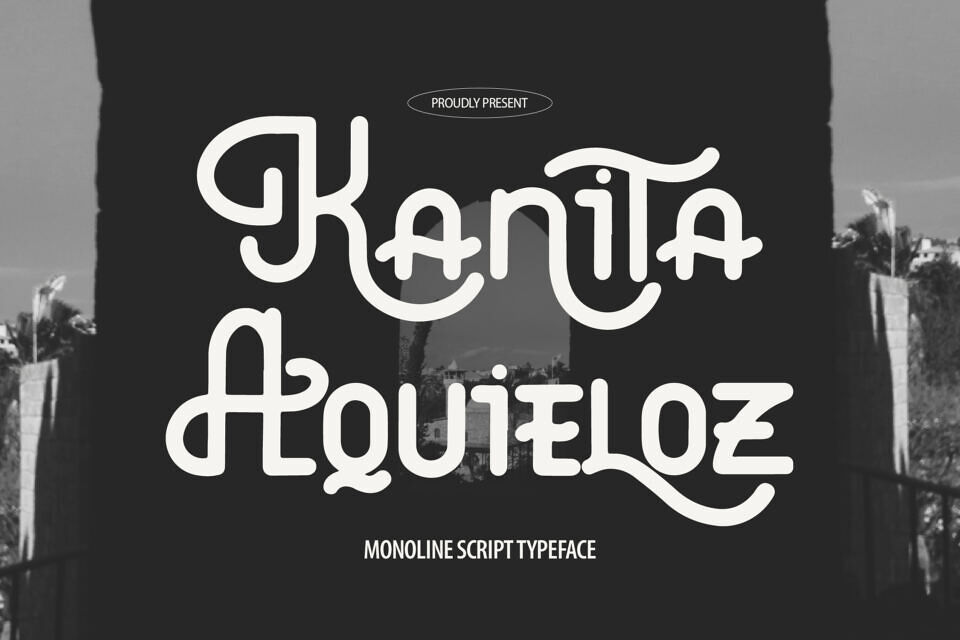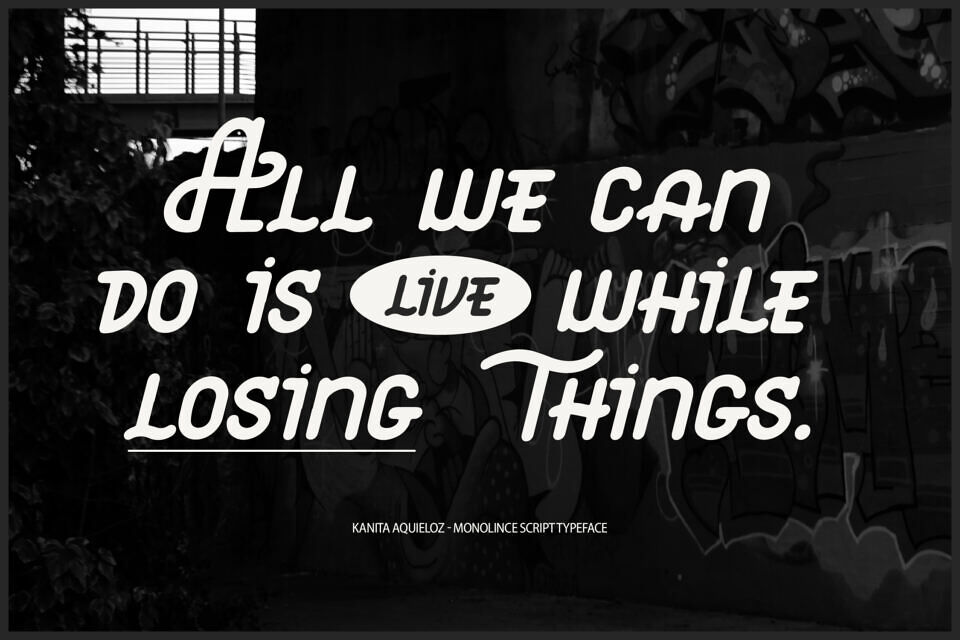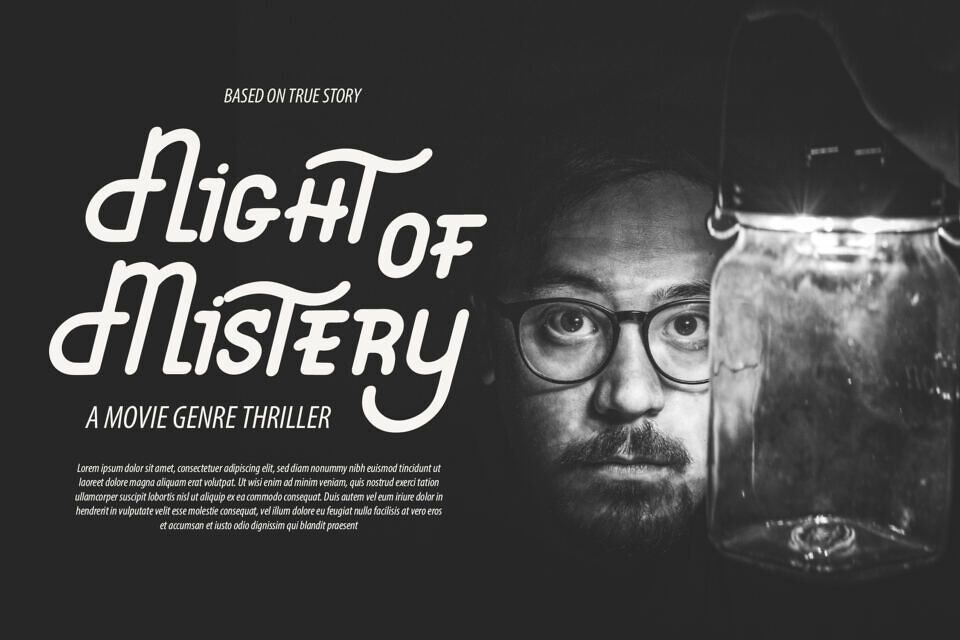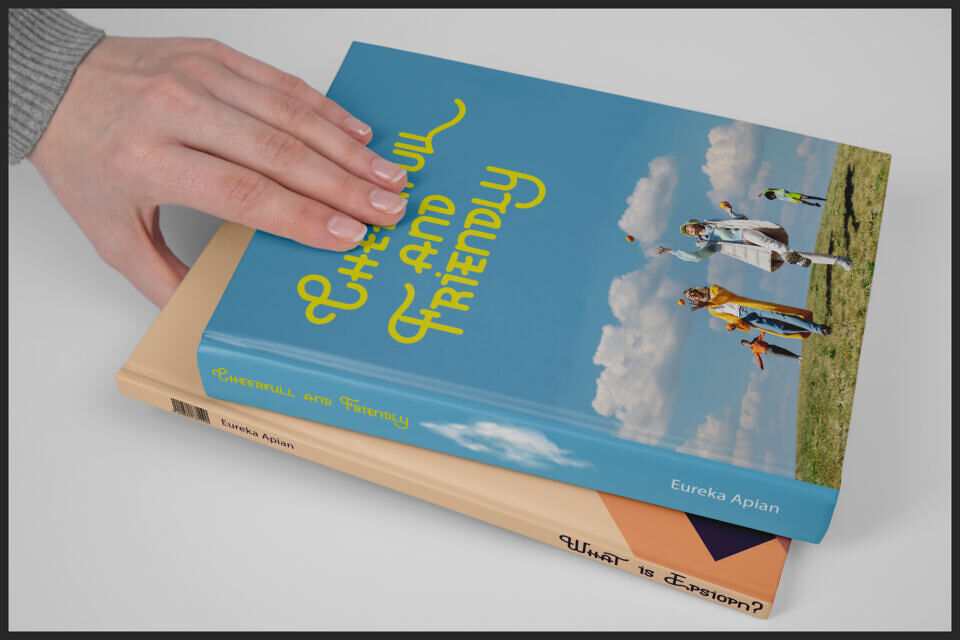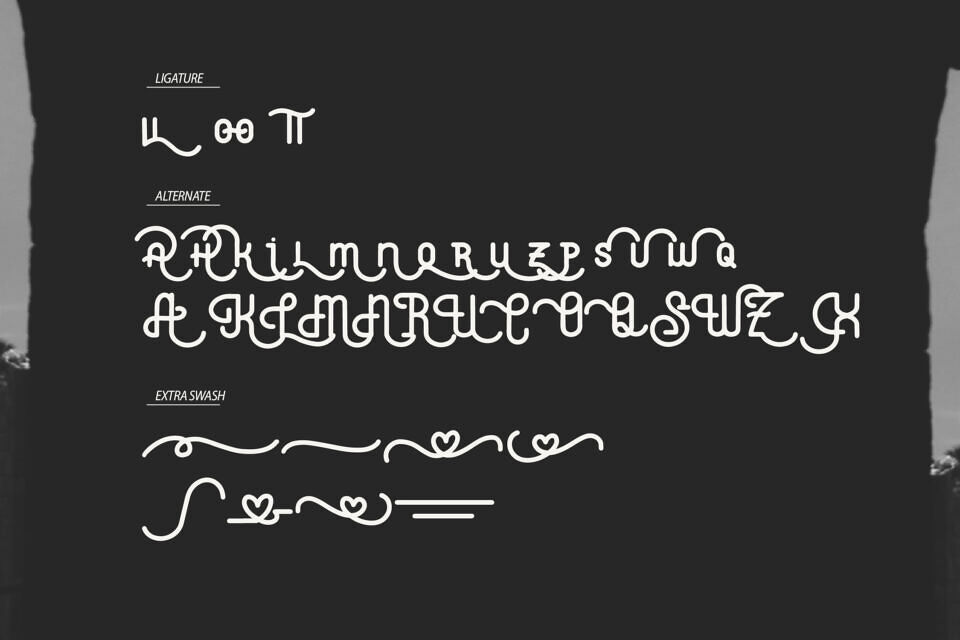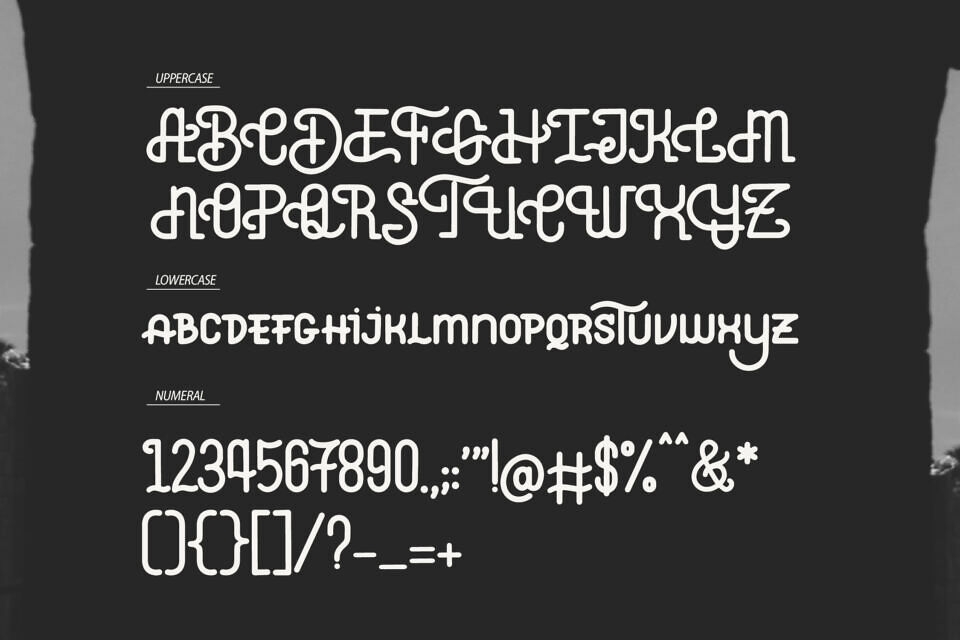
Kanita Aquieloz Font
Kanita Aquieloz is a smooth and elegant script font with thin, even lines. Its flowing, handwritten style makes it perfect for adding a personal and stylish touch to your designs, such as invitations or logos.